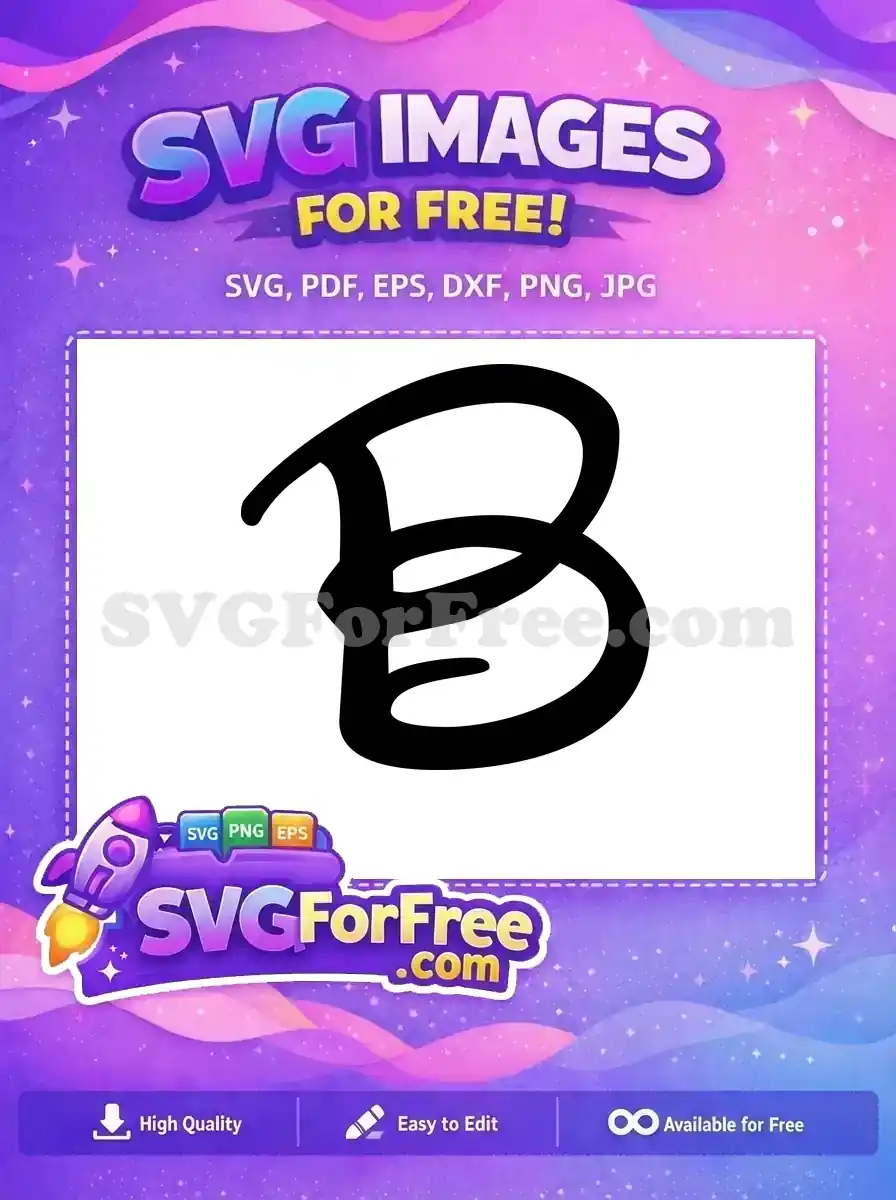
Free Minnie Font Letter B Free Cursive Alphabet Disney Free SVG – Instant Download
Sketchy, stylized letter B (or G) in a unique font, available as a free artistic vector.
Free Minnie Font Letter B Free Cursive Alphabet Disney Free SVG